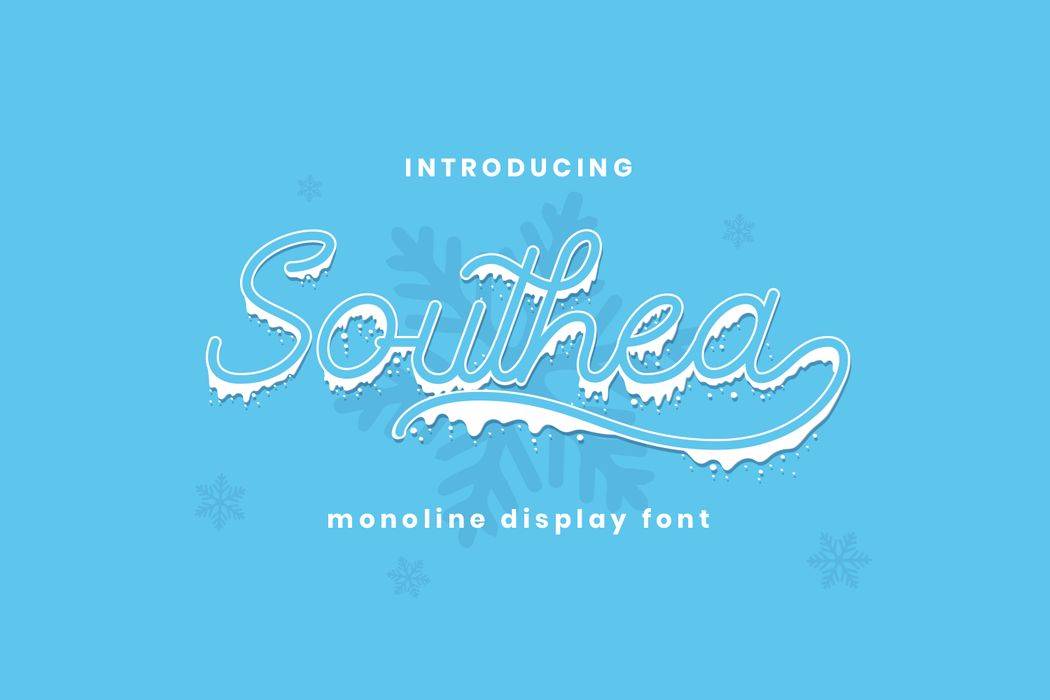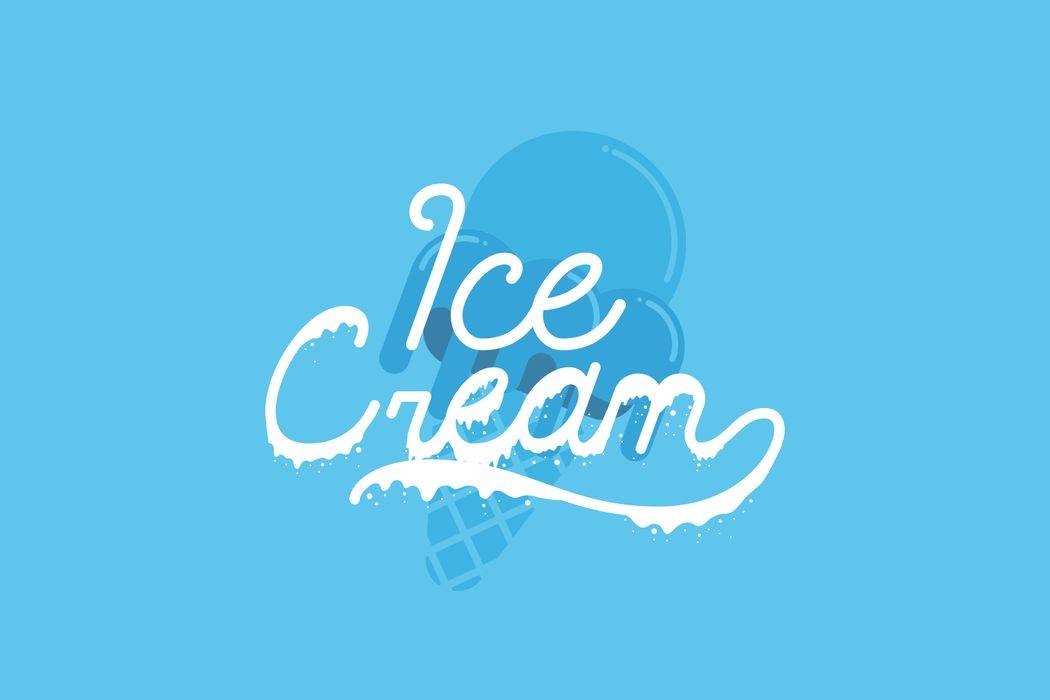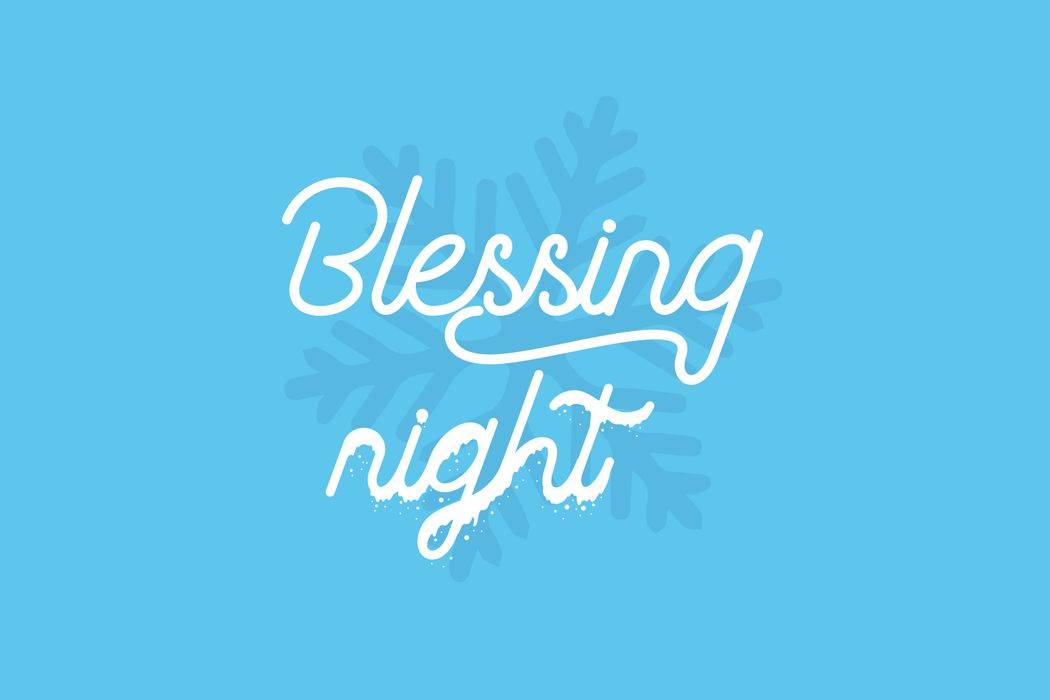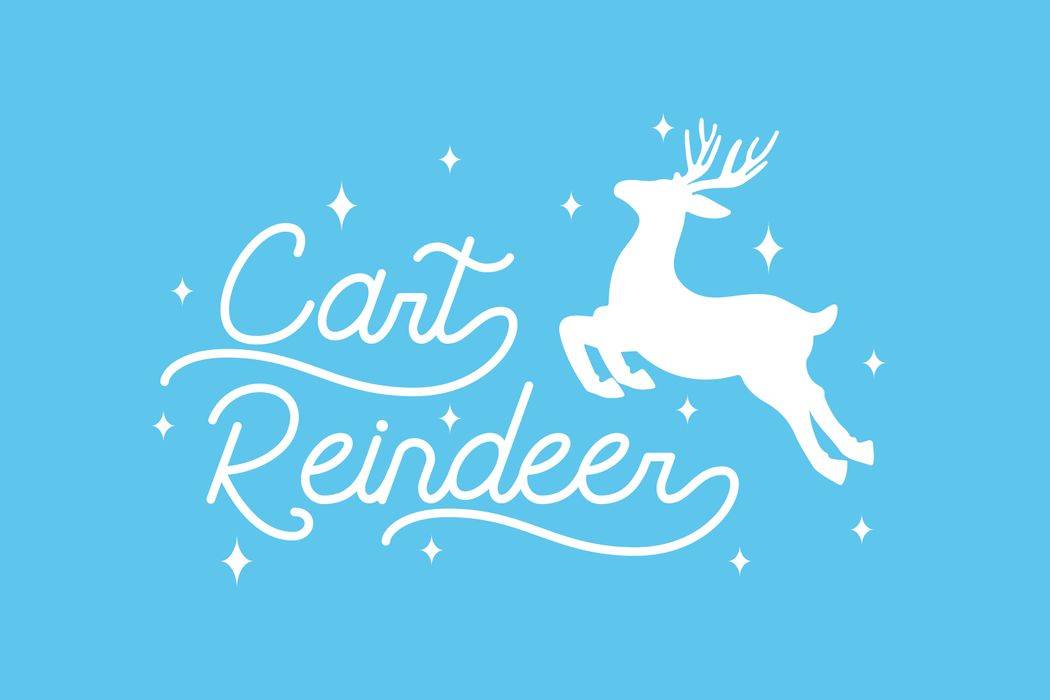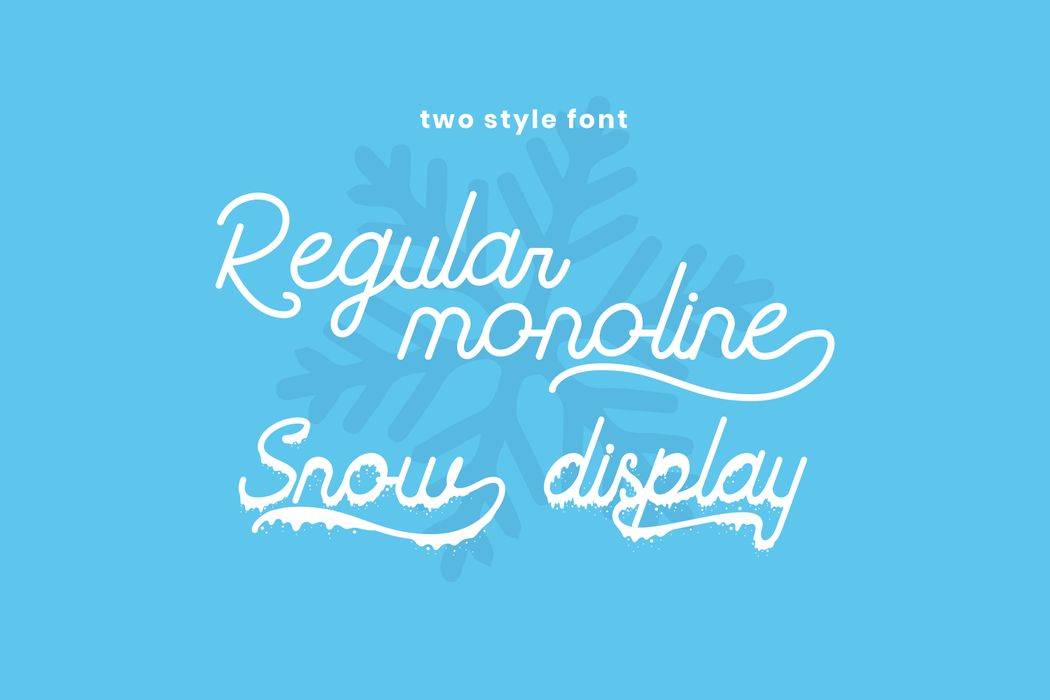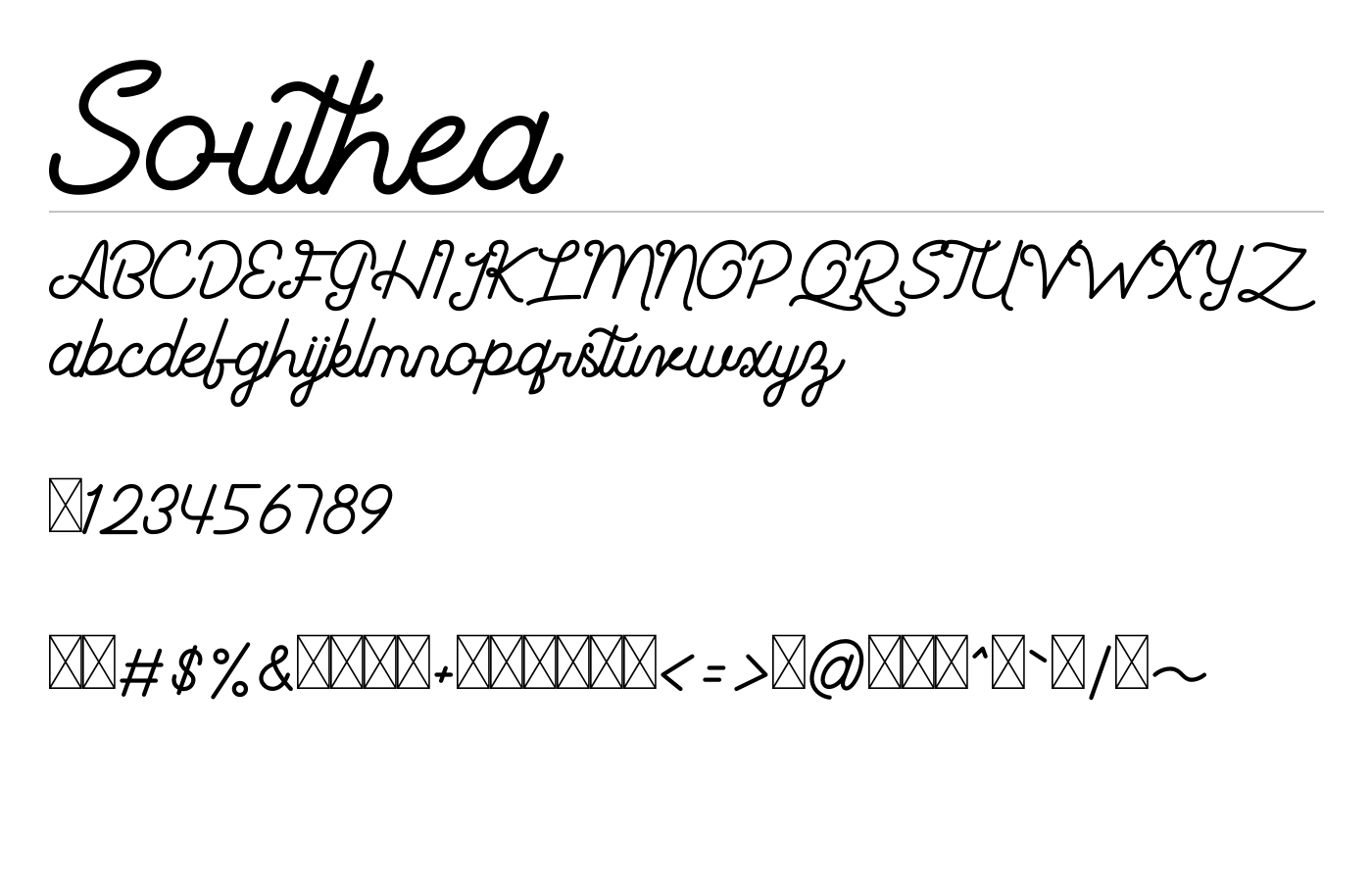
Southea is an elegant script font with a smooth, flowing style that combines both casual and refined qualities. Its slender, slightly condensed letterforms and consistent stroke weight give it a delicate, handwritten feel, making it perfect for invitations, branding, and any design that seeks a personal yet polished touch. This font works beautifully for projects needing a stylish, feminine, and approachable aesthetic.
Southea Font
About Southea Font
| Font family | Southea Font |
| Designer | Fadli Ramadhan Iskandar |